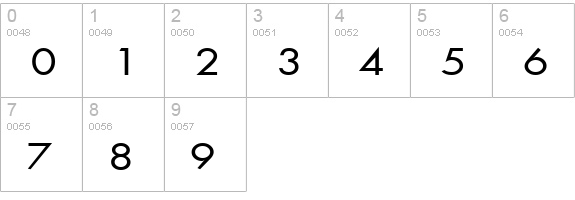
Beau-Extended Normal Font Details
Beau-Extended Normal is the standard, neutral, extended-width variant in the Beau typeface family \xE2\x80\x94 well suited to general body text, paragraphs, and standard typographic work.
Beau-Extended Normal font is a sleek and modern typeface that exudes sophistication and elegance. With its clean lines and balanced proportions, this font is perfect for a wide range of design projects, from branding to editorial design. Its extended width adds a unique touch to any text, making it stand out in a subtle yet impactful way. What's even better is that Beau-Extended Normal font is completely free to download at FontsMarket.com. So whether you're a professional designer looking to add a touch of class to your projects or a hobbyist looking for a stylish font for a personal project, Beau-Extended Normal font is the perfect choice. Download it now and elevate your designs with this beautiful typeface.